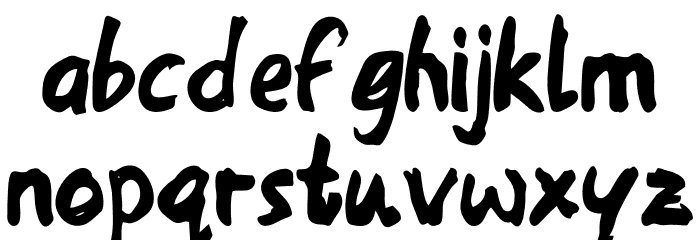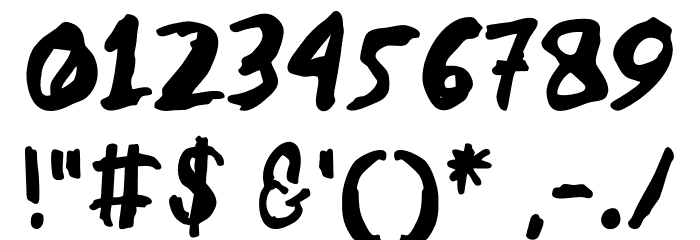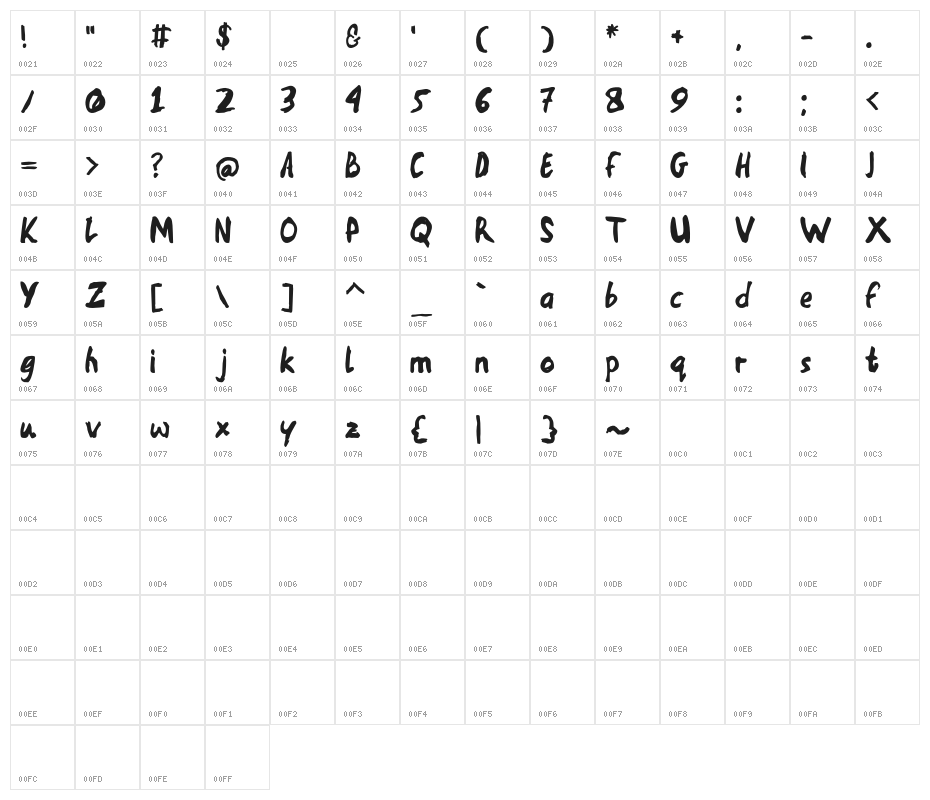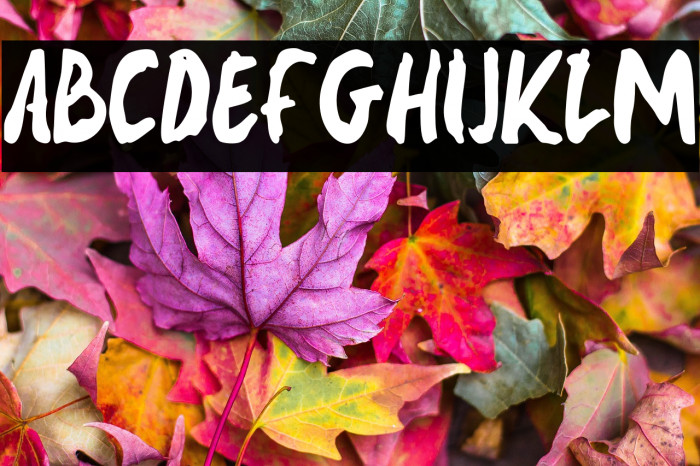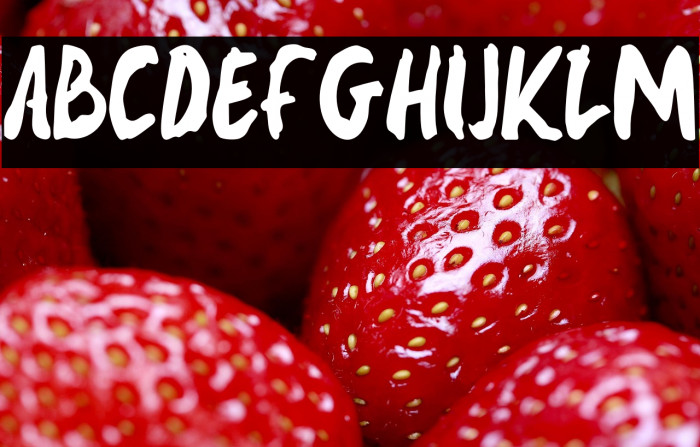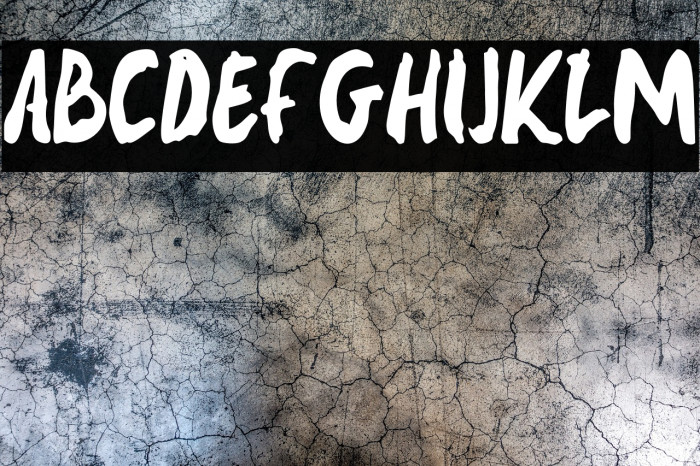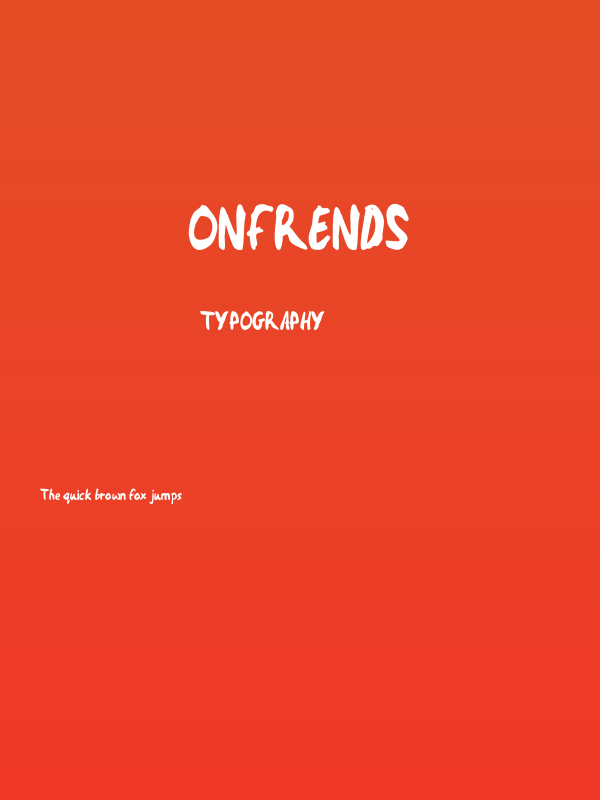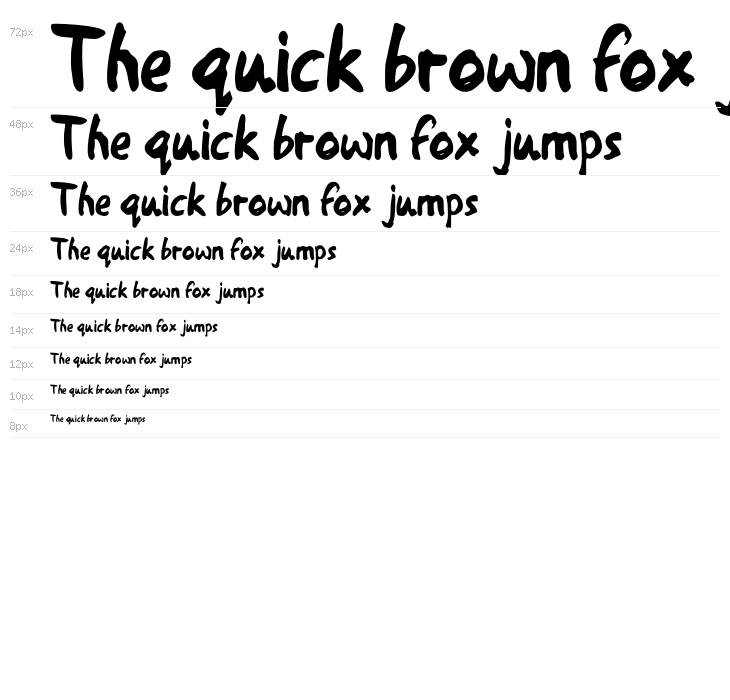
ONFRENDS Font
This font features a bold, expressive style with a handwritten appearance. The letters are thick and slightly irregular, giving a casual and artistic feel. The uppercase and lowercase characters maintain a consistent weight, while the numbers and special characters are equally bold and dynamic. The strokes are rounded and fluid, contributing to a playful and informal aesthetic. This font is ideal for projects that require a personal touch or a creative flair, such as invitations, posters, or branding materials. Its unique style makes it stand out, while still being legible and versatile.
A bold, handwritten-style font with a playful and artistic flair.
- Font: ONFRENDS
- Proposed Projects: Ideal for invitations, posters, branding, and creative projects requiring a personal touch.
- Category: Handwritten
- Use Case: Logos, Headlines, Creative projects